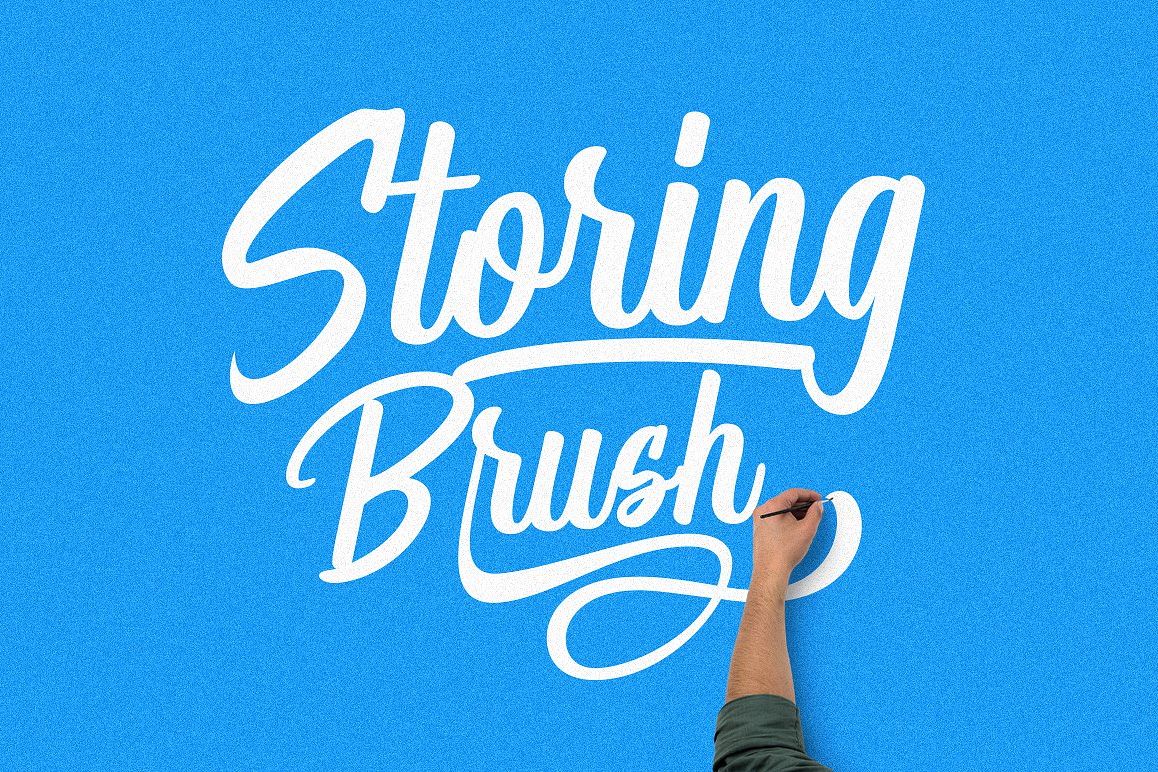
Storing Brush
Storing-Regular
Storing Brush is hand painted typeface designed to help you create the look of stunning custom hand-lettering. The Rupture comes with upper and lowercase characters, punctuation, numerals,supports international languages and OpenType features with Stylistic Alternates,Contextual, and ligaturesStoring Brush is very best choice fonts for : ,quotes, Posters, Logos, Print Ads, Digital Ads, Promotion Product, video bumper, etc.Stylistic alternates for key lower case characters are also available, accessible in the Adobe Illustrator Glyphs panel, or under Stylistic Alternates in the Adobe Photoshop OpenType menu.Thanks